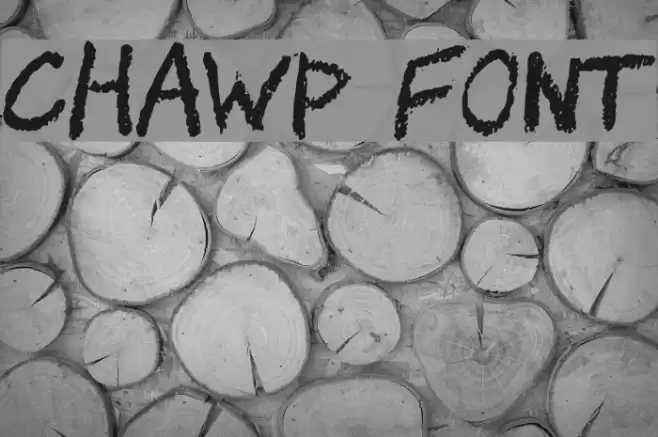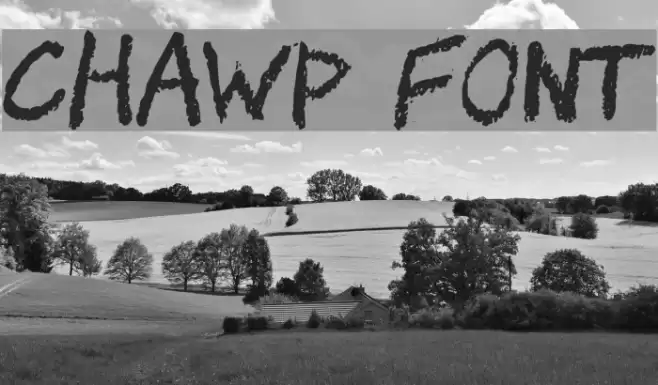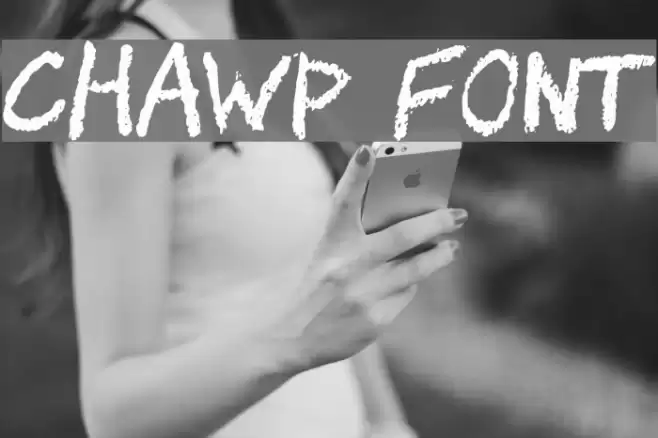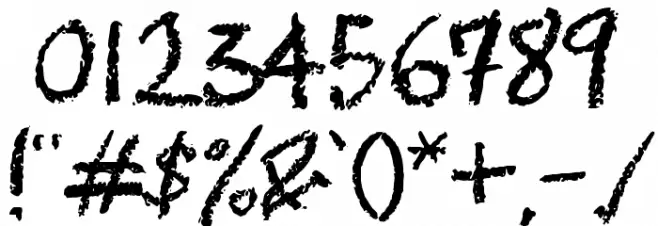
CHAWP Font
CHAWP Description
This font features a rugged, textured appearance reminiscent of chalk or crayon strokes. The characters are bold and expressive, with a hand-drawn quality that adds a playful and informal touch. The uppercase and lowercase letters maintain a consistent style, with slightly uneven edges that enhance the organic feel. Numbers and special characters follow the same design, ensuring a cohesive look across all text elements. The font's unique texture makes it stand out, ideal for projects that require a casual, artistic flair.
A bold, textured font with a hand-drawn, chalk-like appearance from Script fonts.
- Proposed Projects: Ideal for children's book covers, playful posters, artistic branding, and educational materials.